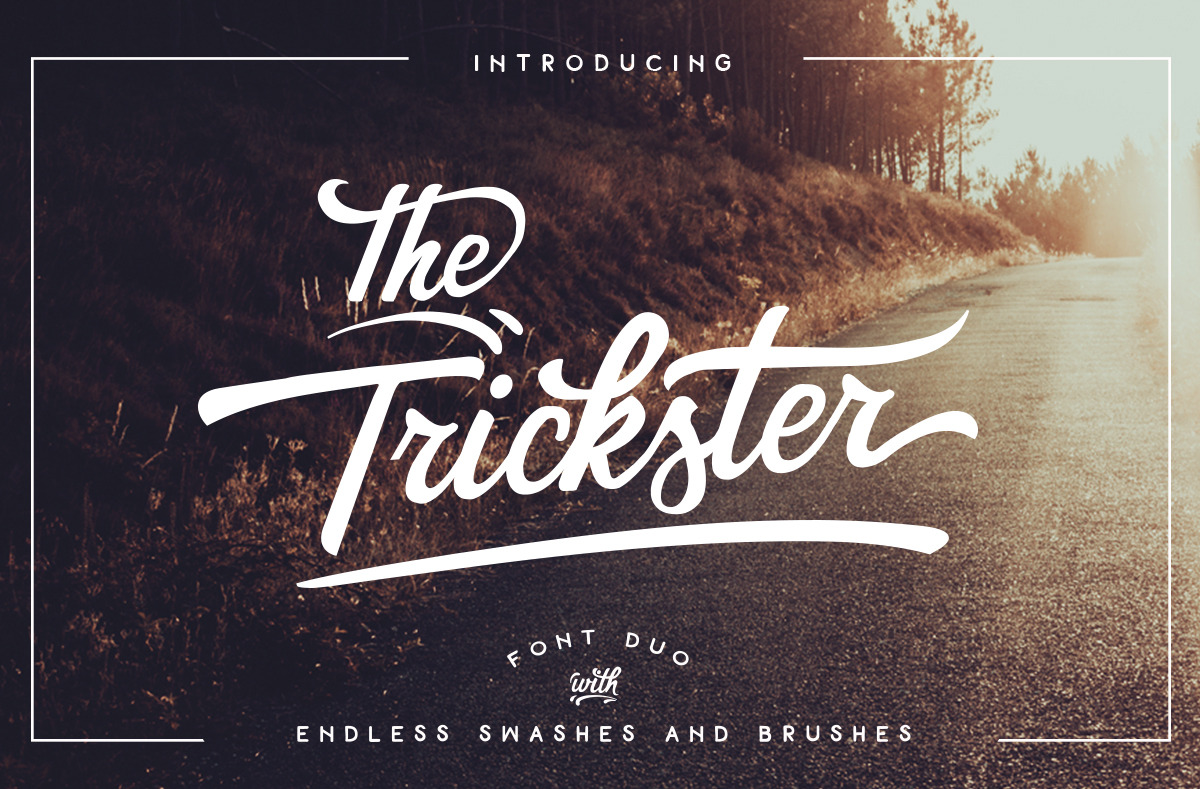
The Trickster Font Duo + extras
The Trickster is a display font with lots of alternatives and brushes plus a complementary font and another one with swashes.
I love this font. I'm using it for several personal projects and will likely buy a new license to use it for some product packaging in a farmer's market size business my wife and I are considering. There are definitely some alignment issues and some of the lines on the swashes aren't very sharp, but I've been able to fix all of that with nothing more than a basic working knowledge in Illustrator. I just love the "positive energy" and creativity of this font.
Useless. I'm rather dissapointed in what should have been an awesome font. Yes the style is great and unique, but the quality is absolutely terrible. lt's like someine tried to live-trace the letters and eyeball the alignment. I hope that the font gets an update and cleaned up becuase it's got good bones, but it is hardly worth the pricetag.